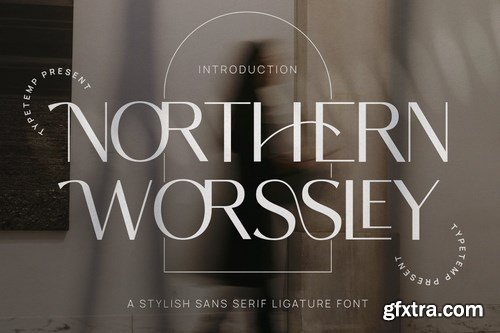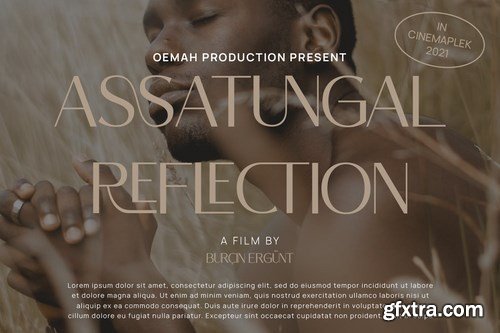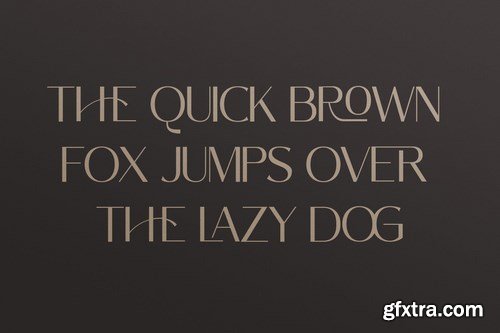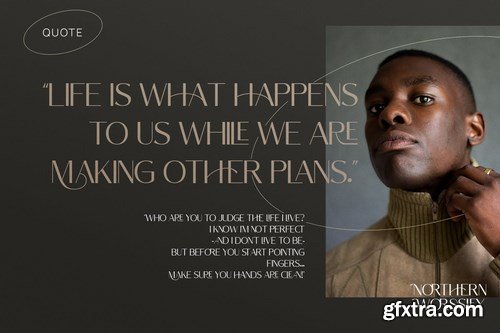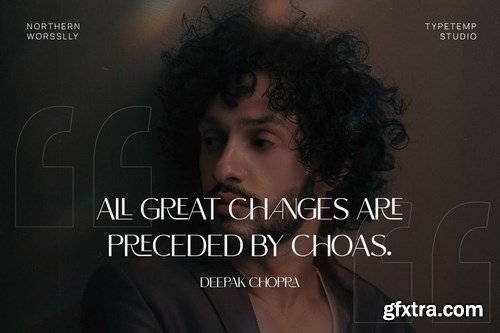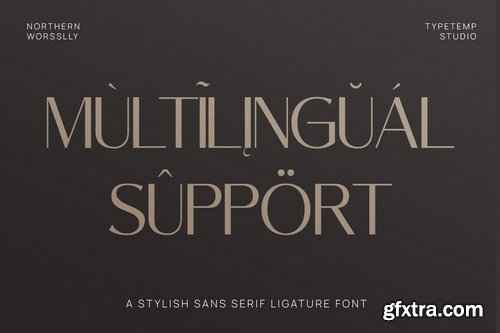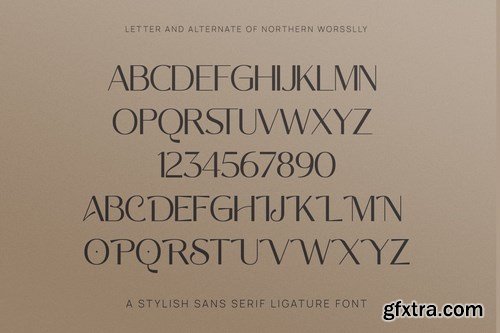
Northern Worssley is a made with a stylish elegant and modern touch, this font is ready to use with your brand and design, Access your OpenType features to access the large selection of alternate letters and ligatures, select the letters you like from the large variety to get the display font you like.